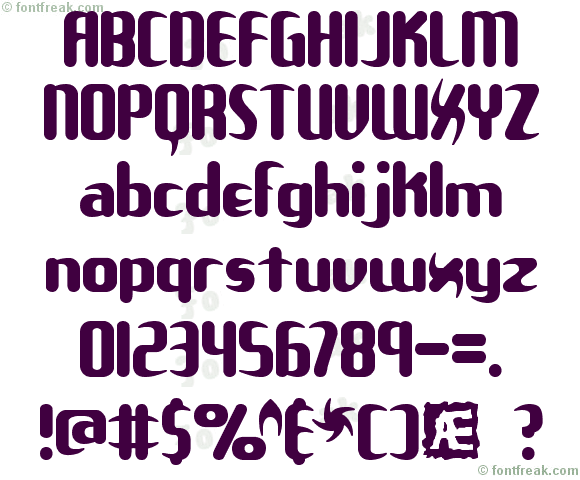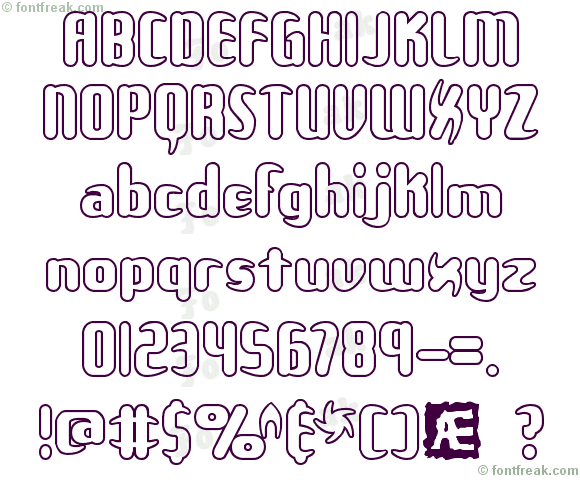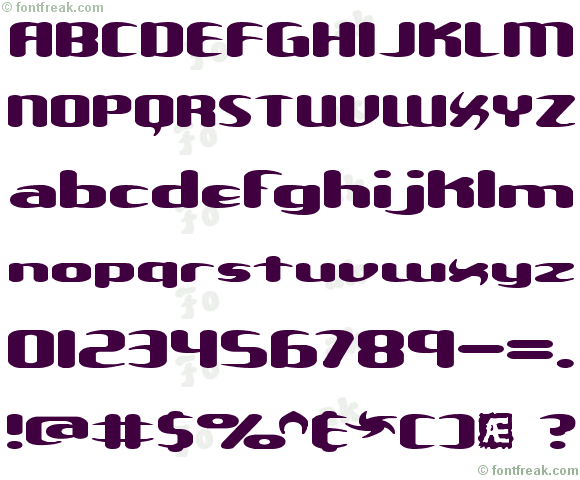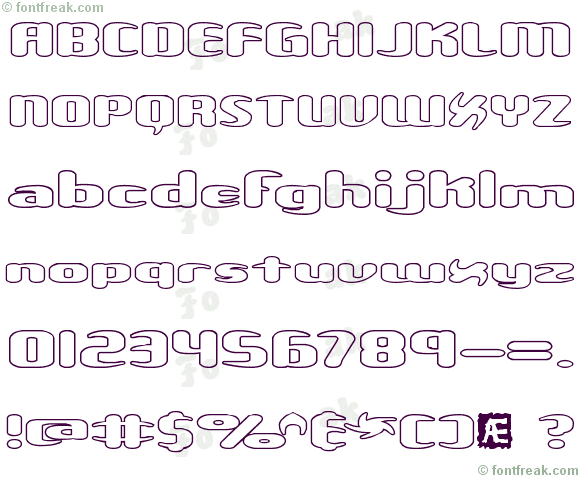
Unexplored Galaxies WO BRK
Unexplored Galaxies O BRK
Unexplored Galaxies W BRK
Unexplored Galaxies BRK
Unexplored Galaxies by Ænigma Fonts is a visually captivating display font that evokes a sense of wonder and adventure. This typeface features a unique blend of organic shapes and cosmic-inspired elements, making it ideal for projects that aim to capture the imagination. With a medium stroke weight and varying contrast, Unexplored Galaxies strikes a balance between boldness and elegance. The letterforms exhibit subtle curves and rounded edges, creating a friendly yet intriguing aesthetic. The spacing between characters is thoughtfully designed to ensure readability while maintaining a sense of flow, perfect for grabbing attention in various applications.
This font is particularly well-suited for creative projects such as movie posters, where it can convey themes of science fiction or fantasy. It also shines in branding for niche businesses like space-themed cafes or bookstores, helping to set an inviting tone that hints at the extraordinary. Wedding invitations can benefit from its enchanting style, providing a whimsical touch that evokes a sense of romance and exploration. Additionally, Unexplored Galaxies can be used effectively in social media graphics, allowing content creators to make bold statements that resonate with audiences.
Targeted at graphic designers, small business owners, and content creators, Unexplored Galaxies is a versatile choice for anyone looking to infuse their work with a sense of mystery and creativity. Its freeware license makes it accessible for personal and commercial projects, encouraging users to experiment without financial constraints. In a landscape filled with standard typefaces, the Unexplored Galaxies font free download stands out for its imaginative design and versatility, inviting users to venture into uncharted territories of typography. With its distinctive character, this font is sure to leave a lasting impression.